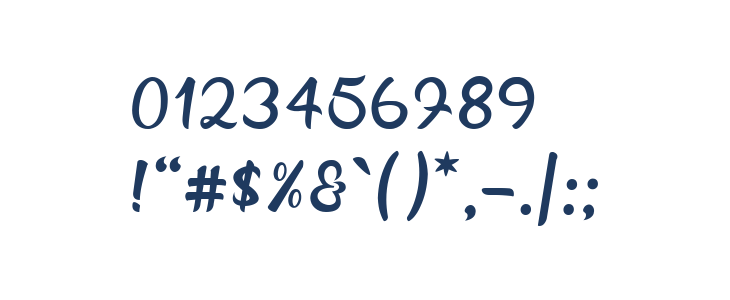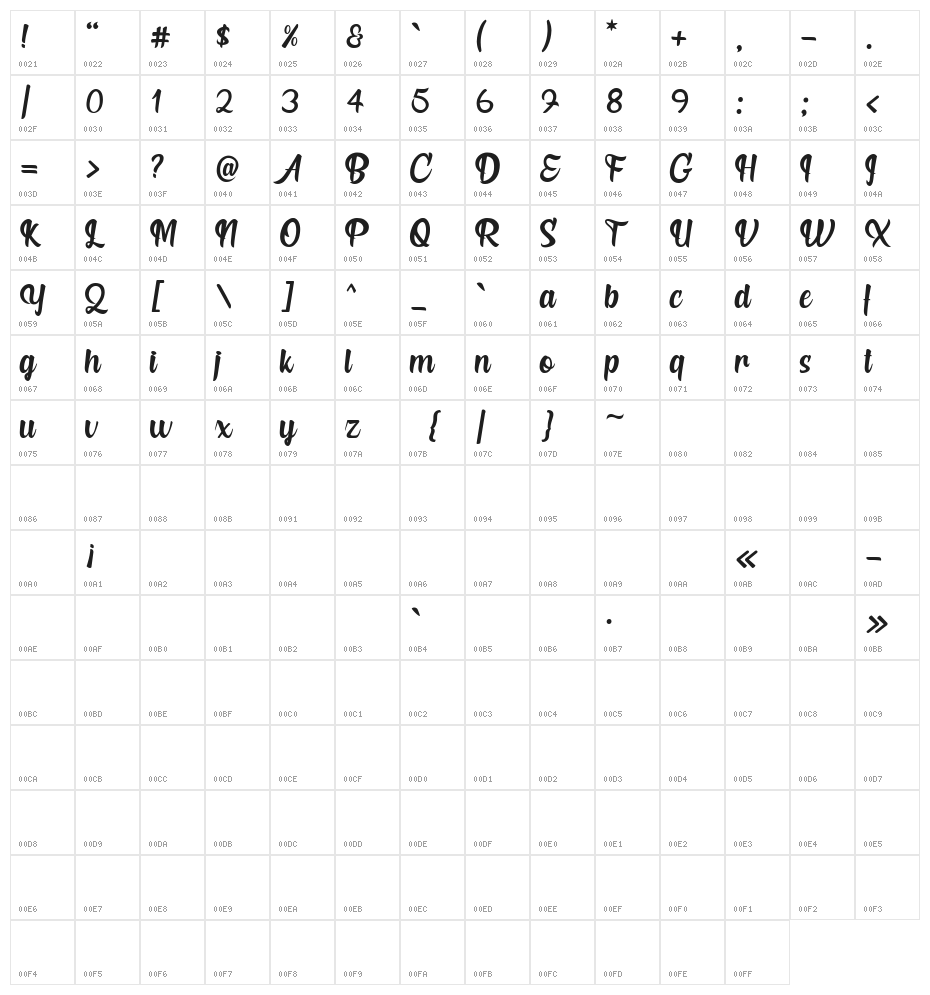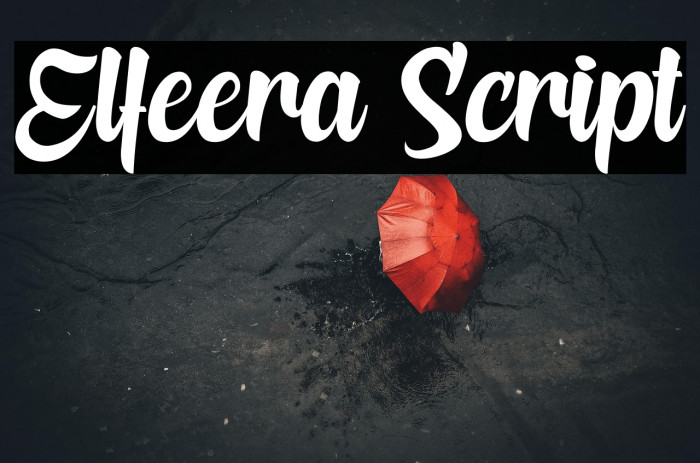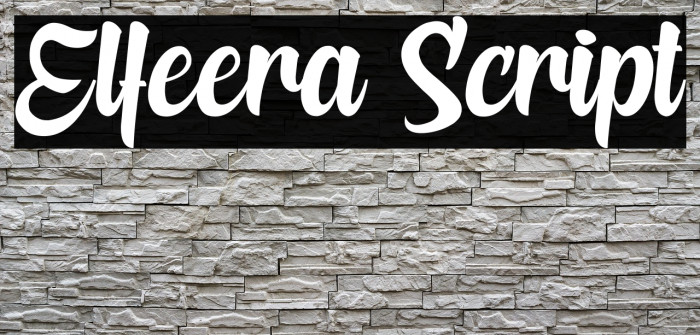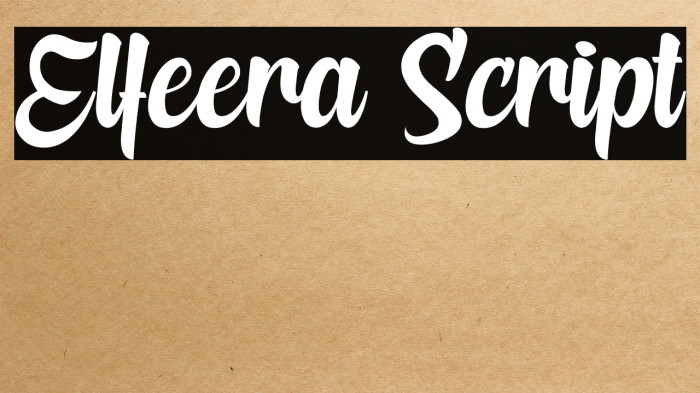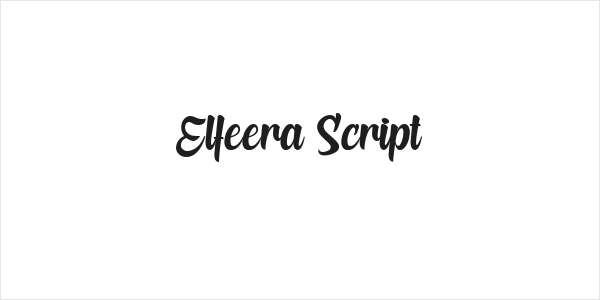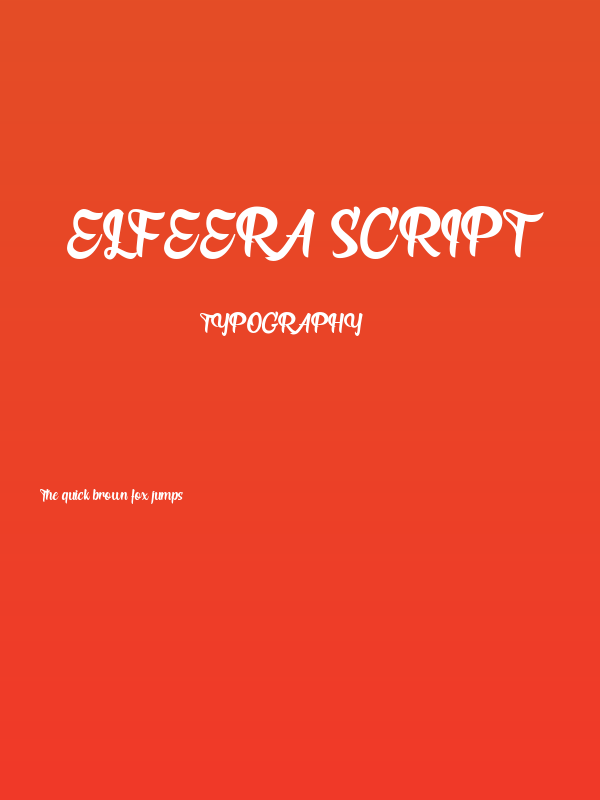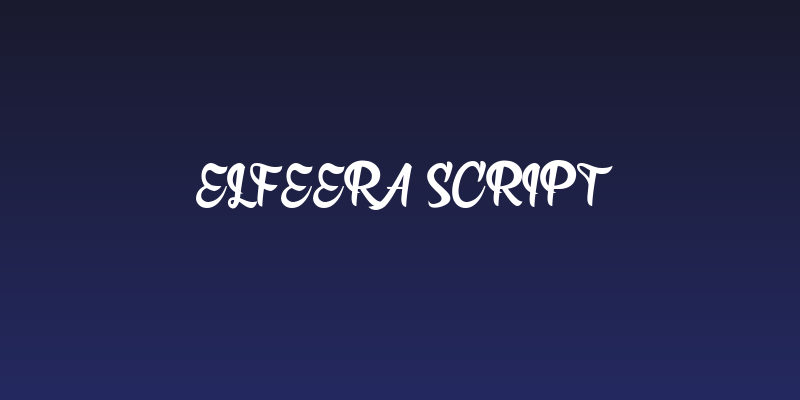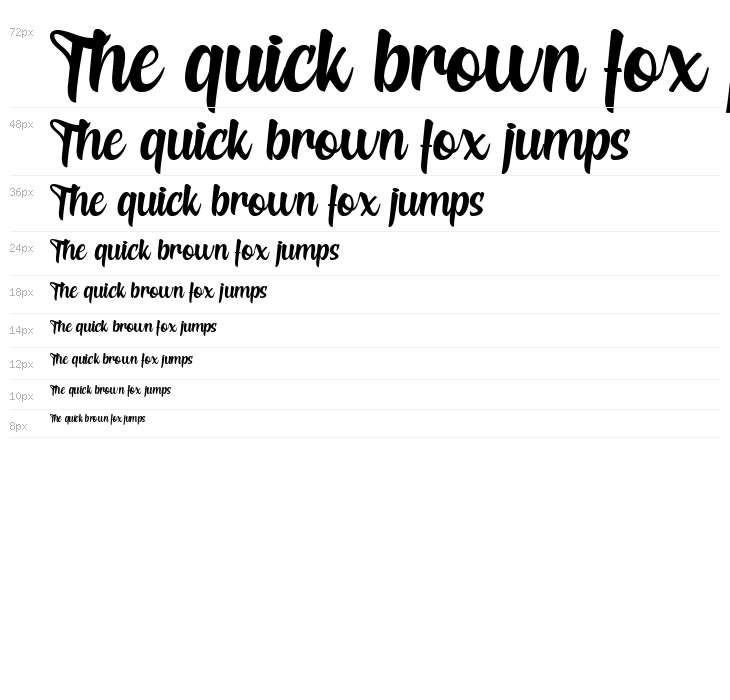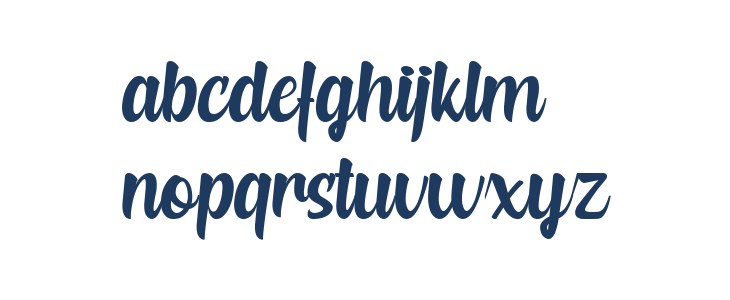
Elfeera Script Font
Elfeera Script Description
This font features a flowing, cursive style with smooth, connected strokes that give it a handwritten appearance. The uppercase letters are bold and elegant, with sweeping curves and a consistent slant that adds a sense of motion. The lowercase letters maintain the same fluidity, with some characters having unique loops and flourishes that enhance its decorative nature. The numerals are rounded and maintain the same stylistic flow, making them cohesive with the alphabet. Special characters are designed to match the overall aesthetic, ensuring a harmonious look across all glyphs. This font is ideal for projects that require a personal touch, such as invitations, greeting cards, or branding materials.